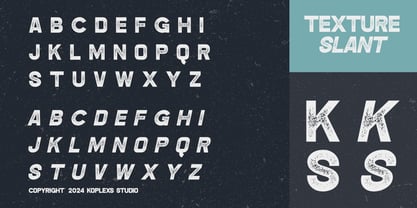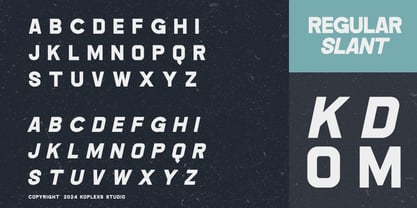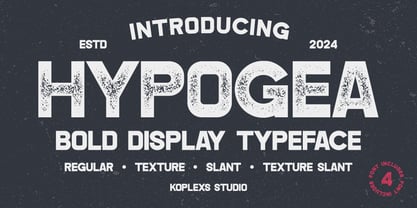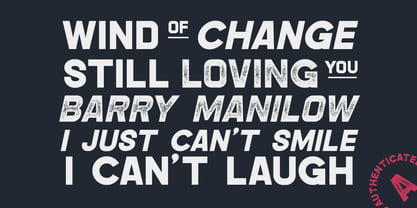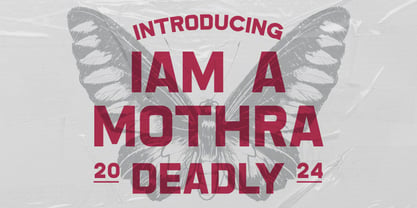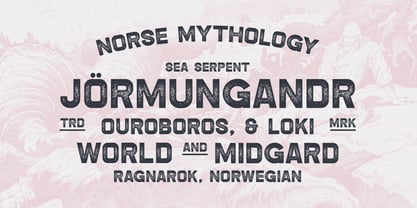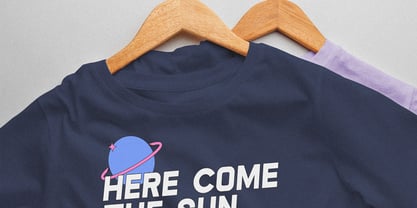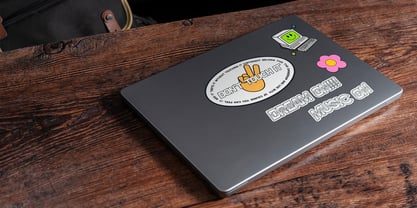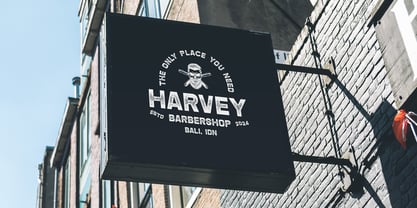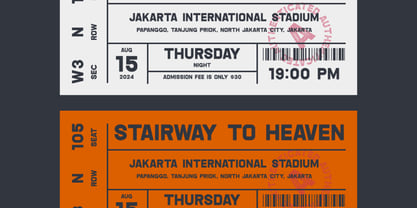
Hypogea
A Bold Vintage Sans Serif Typeface
Hypogea Font is a bold and modern Sans Serif font inspired by classic vintage typography, retro signage, and contemporary branding aesthetics. Carefully crafted with strong geometric shapes and impactful letterforms, this typeface brings a perfect balance between nostalgic character and modern versatility.
Designed to make a statement, Hypogea Font is ideal for designers who need a powerful headline font, eye-catching poster font, or memorable logo font with authentic personality. Its bold structure ensures excellent readability while maintaining a stylish retro appearance suitable for both print and digital media.
The family includes multiple styles such as Regular, Slant, Texture, and Texture Slant, giving you creative flexibility for various design directions. The textured versions provide a raw handcrafted look, making Hypogea an excellent texture font for vintage-inspired projects, urban branding, and adventure-themed visuals.
Whether you are creating bold branding, product packaging, editorial layouts, or apparel graphics, Hypogea Font delivers a strong visual impact with timeless appeal.
Bring bold personality and vintage energy into your creative projects with Hypogea Font — a versatile display typeface designed to stand out in every composition.